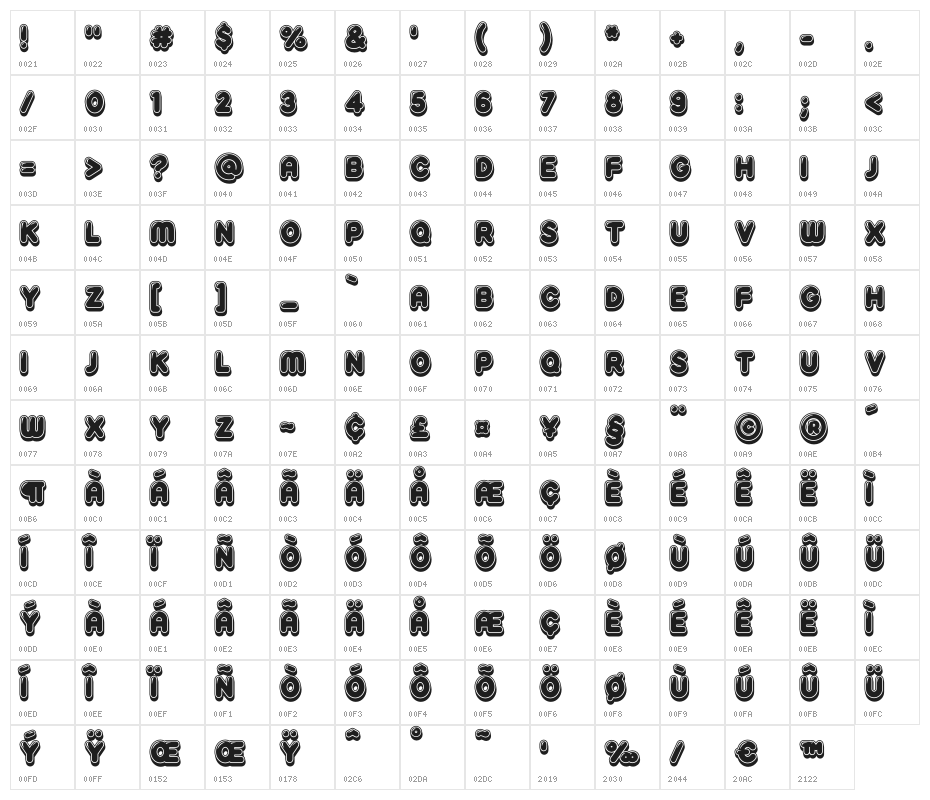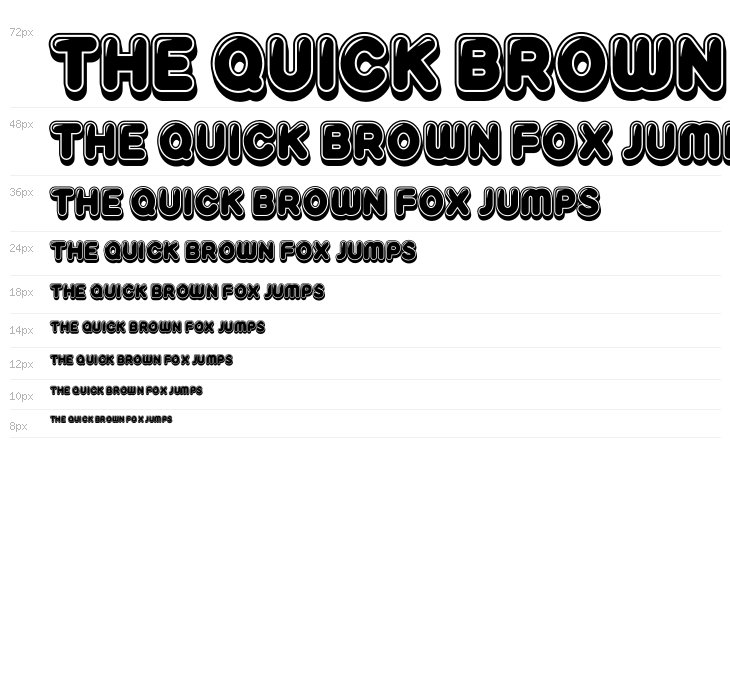
Reglisse Font
Reglisse Description
This font features a bold, playful design with a strong outline that gives it a three-dimensional effect. The characters are rounded and have a bubble-like appearance, making them stand out with a sense of fun and creativity. The thick outlines add a layer of depth, enhancing the visual impact. This style is reminiscent of retro or vintage designs, often used to evoke a sense of nostalgia. The font is highly legible, with each character distinctly separated, making it suitable for various display purposes.
| Overall Style | Retro, Playful |
| Proposed Projects | Ideal for children's books, playful branding, posters, and retro-themed designs. |